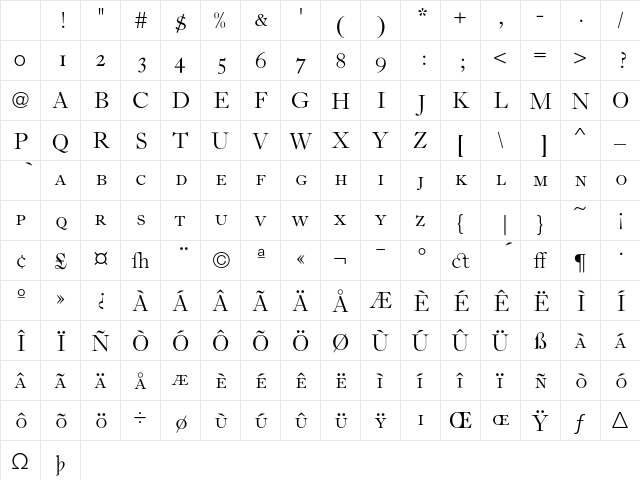
Complete CaslonC37 LightAlternates glyph index. Displaying only characters natively supported by CaslonC37 LightAlternates font.
CaslonC37 is a composed and adaptable typeface that performs quietly and consistently across a wide range of design contexts. Its slender proportions lend an understated elegance to any composition.